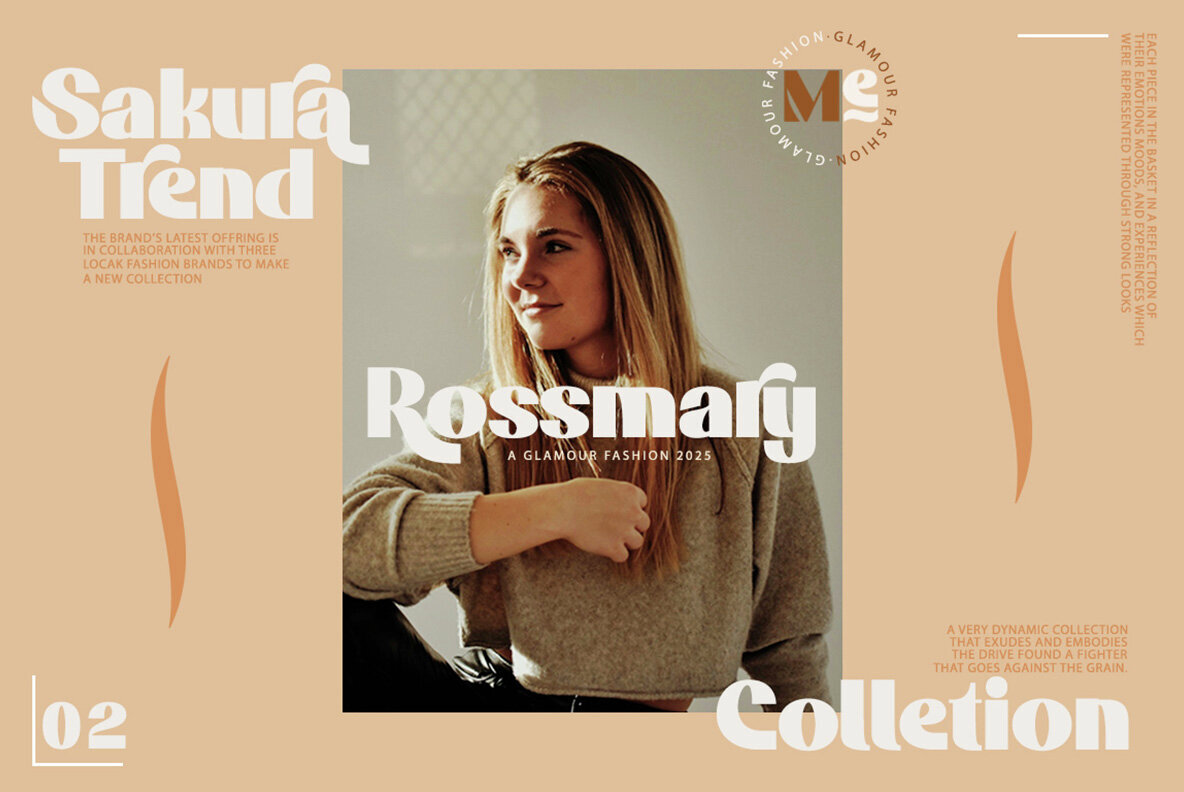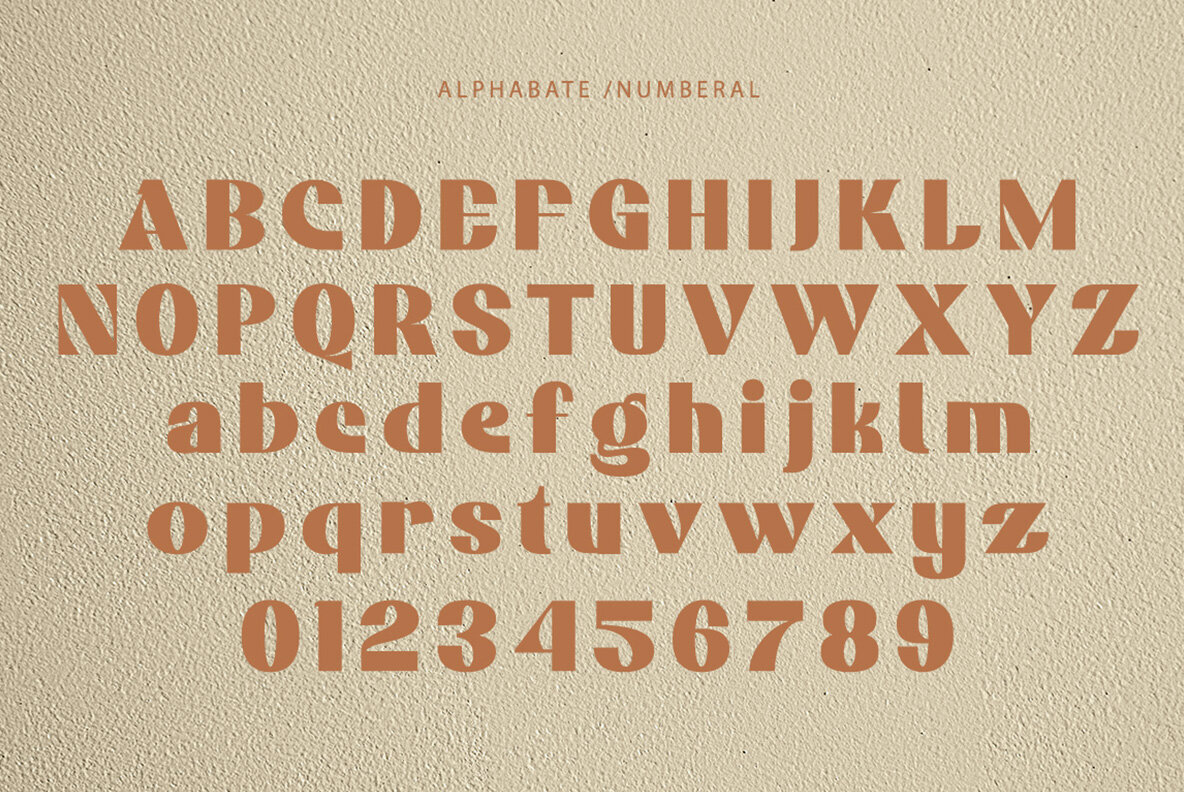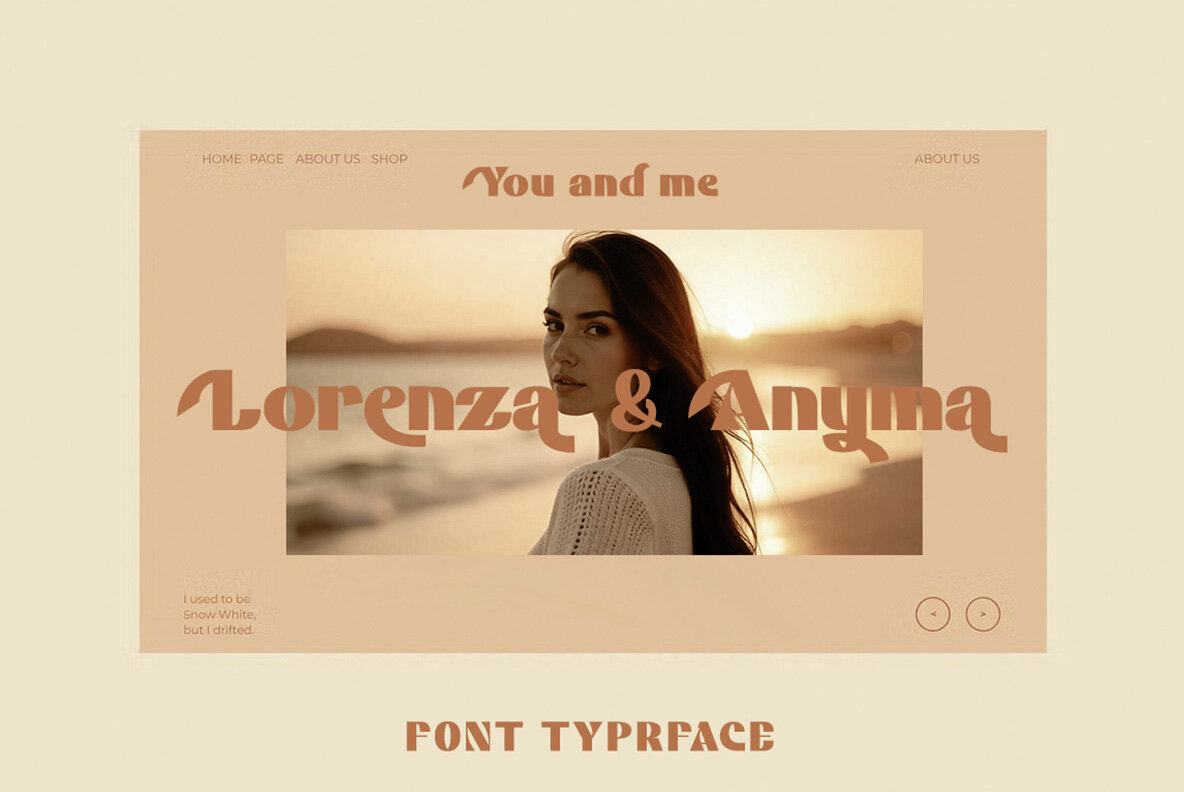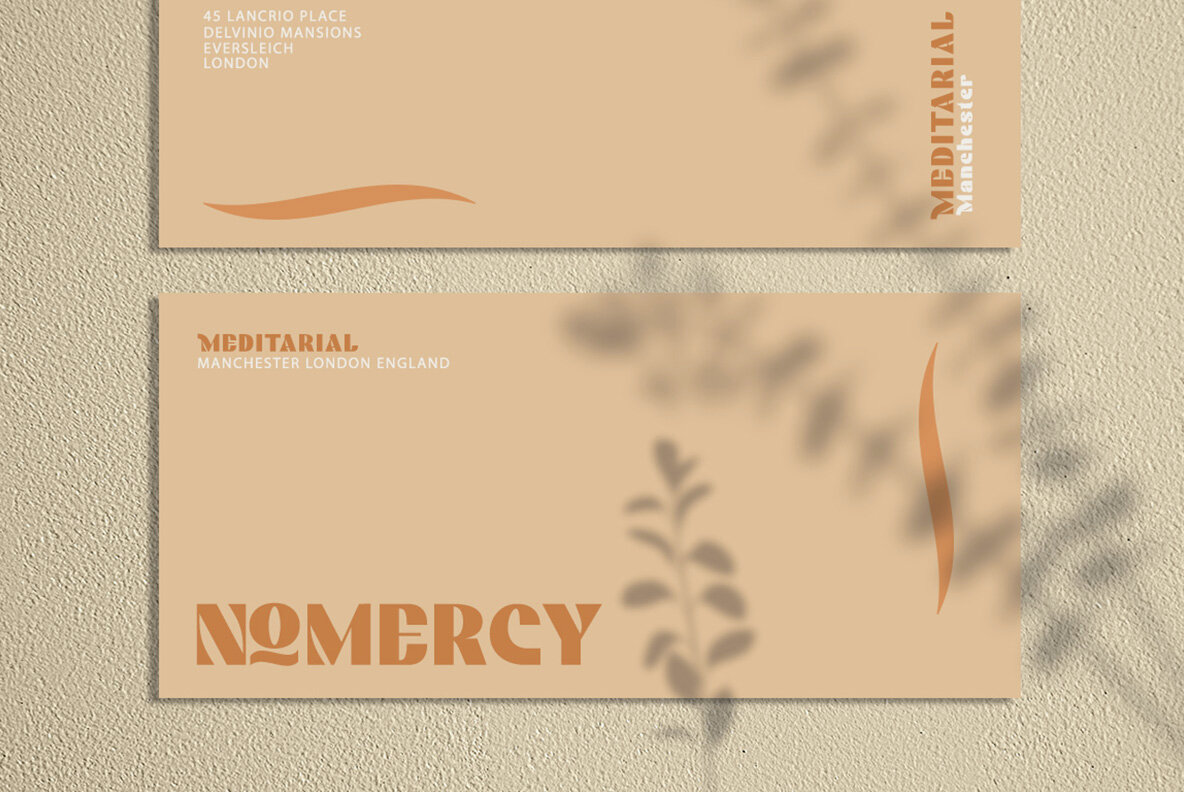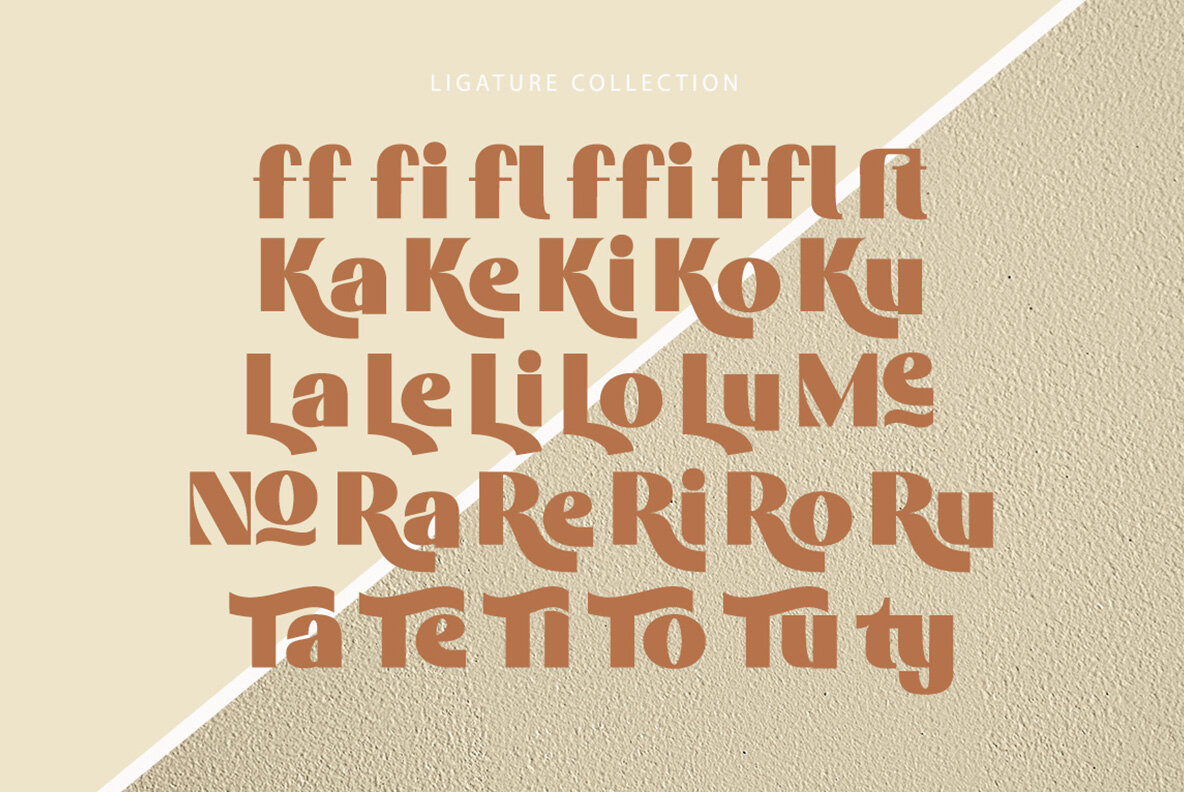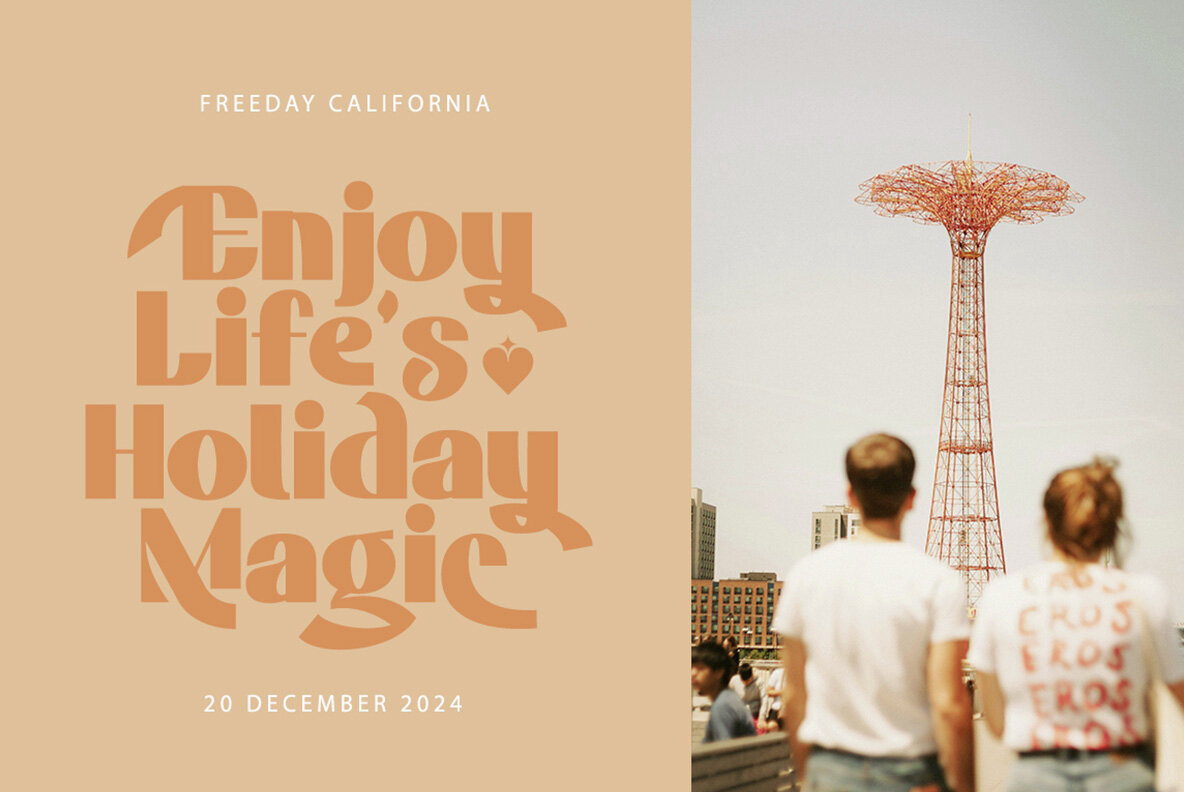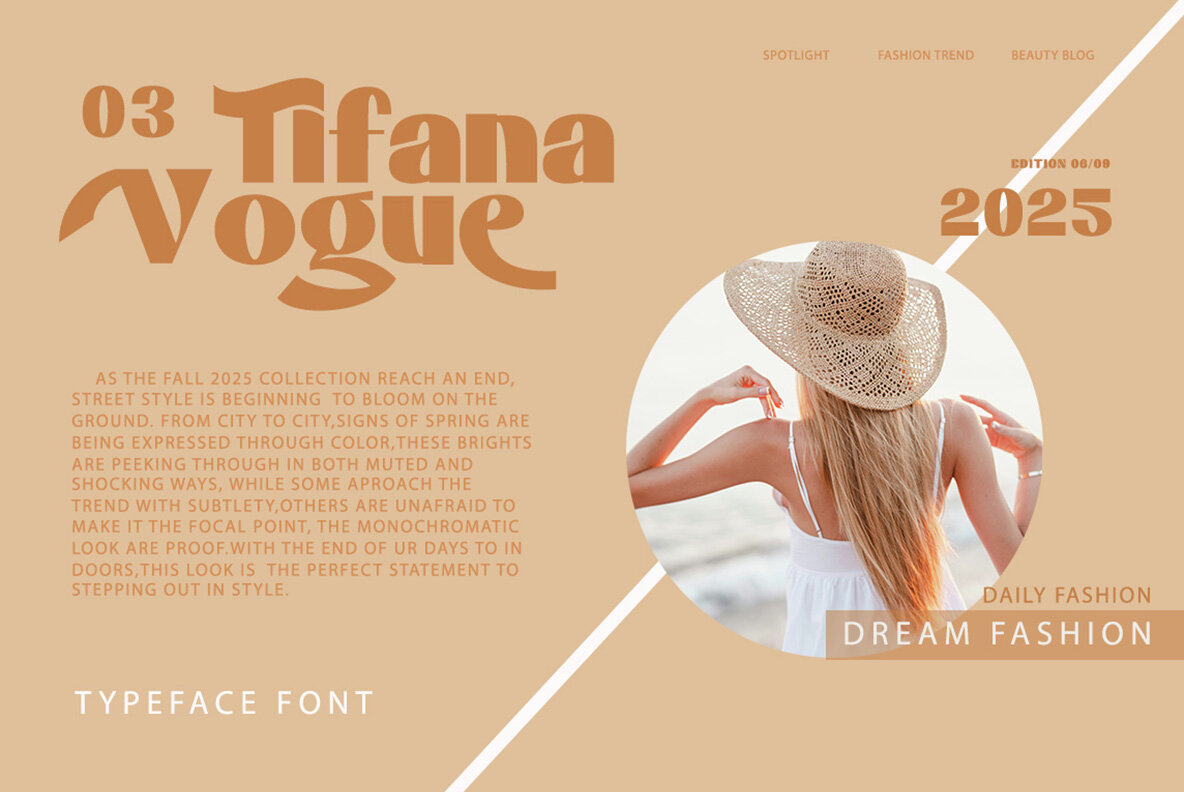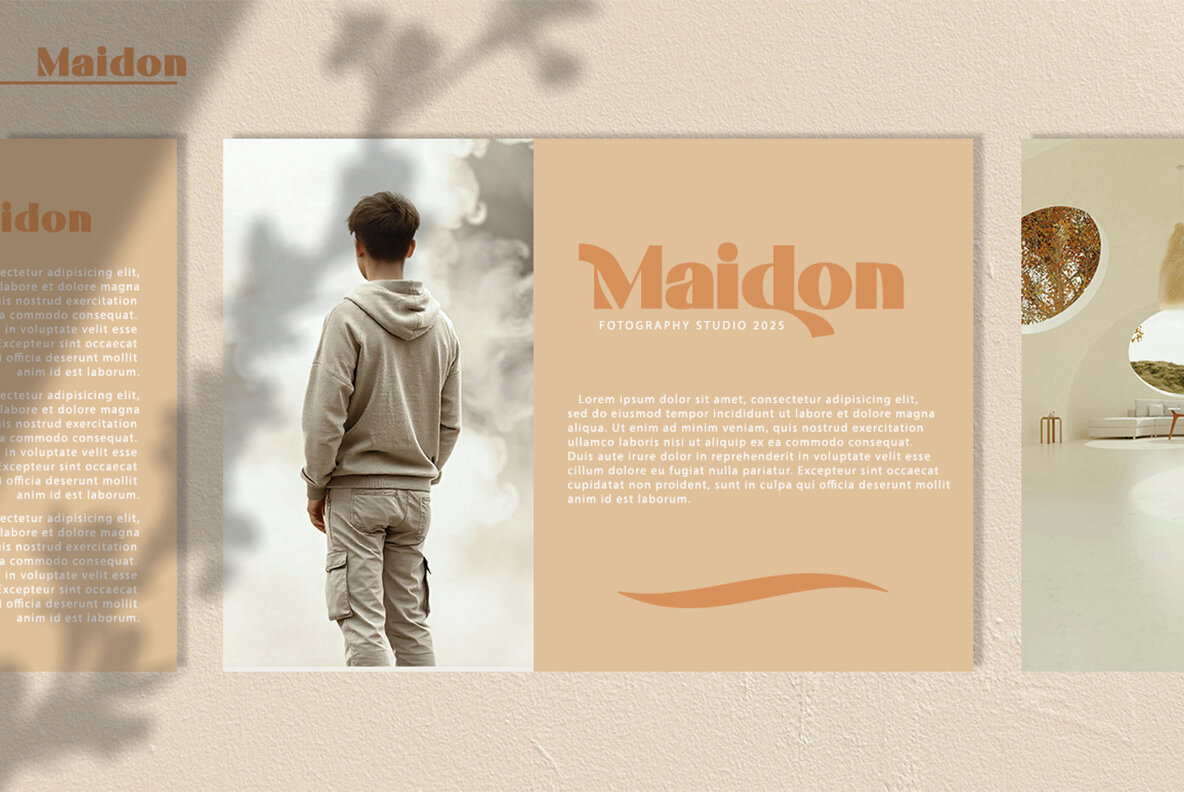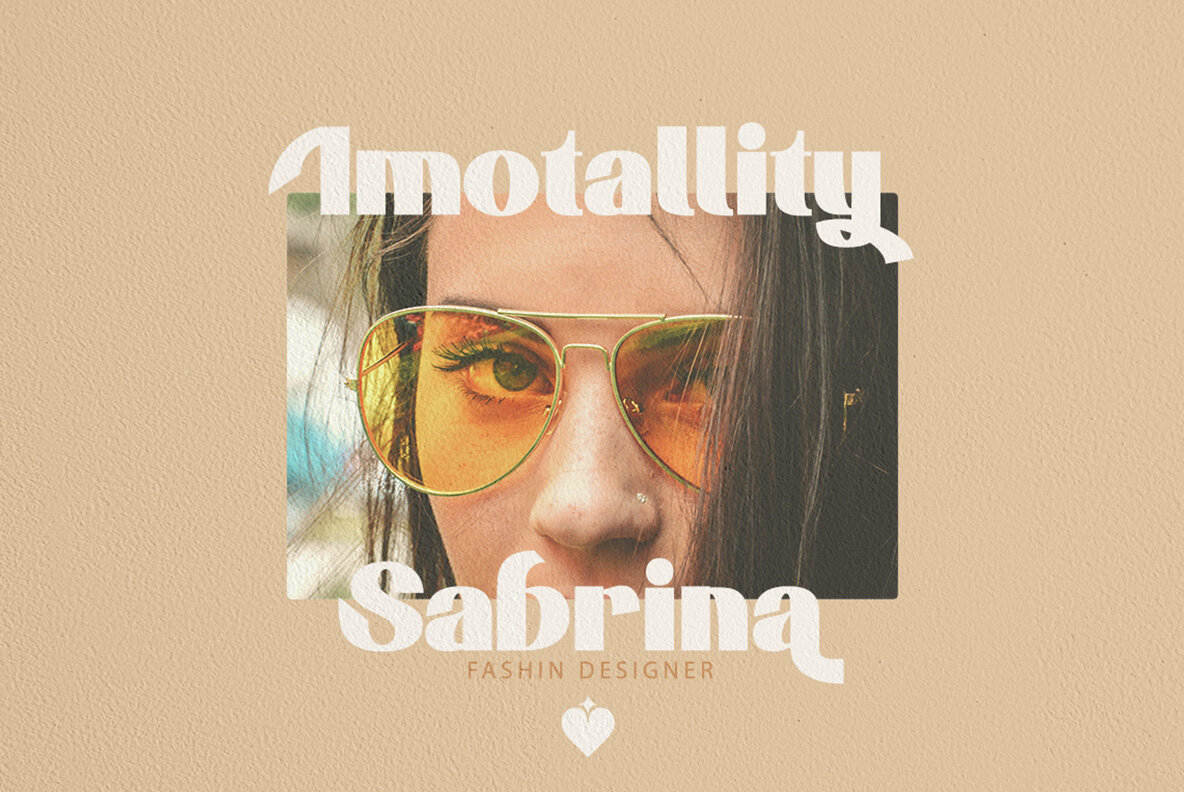
Megan Beauty Font
Megan Beauty Regular
Megan Beauty is a contemporary display sans-serif font designed to offer a modern and sophisticated touch to your projects. It comes in a classy style that includes a wide range of alternative characters and bindings, thanks to its versatile OpenType features. The font provides a dynamic selection of both large and small variations, perfect for achieving a luxurious and elegant aesthetic in your designs.